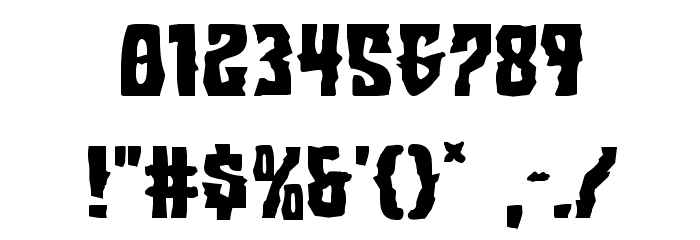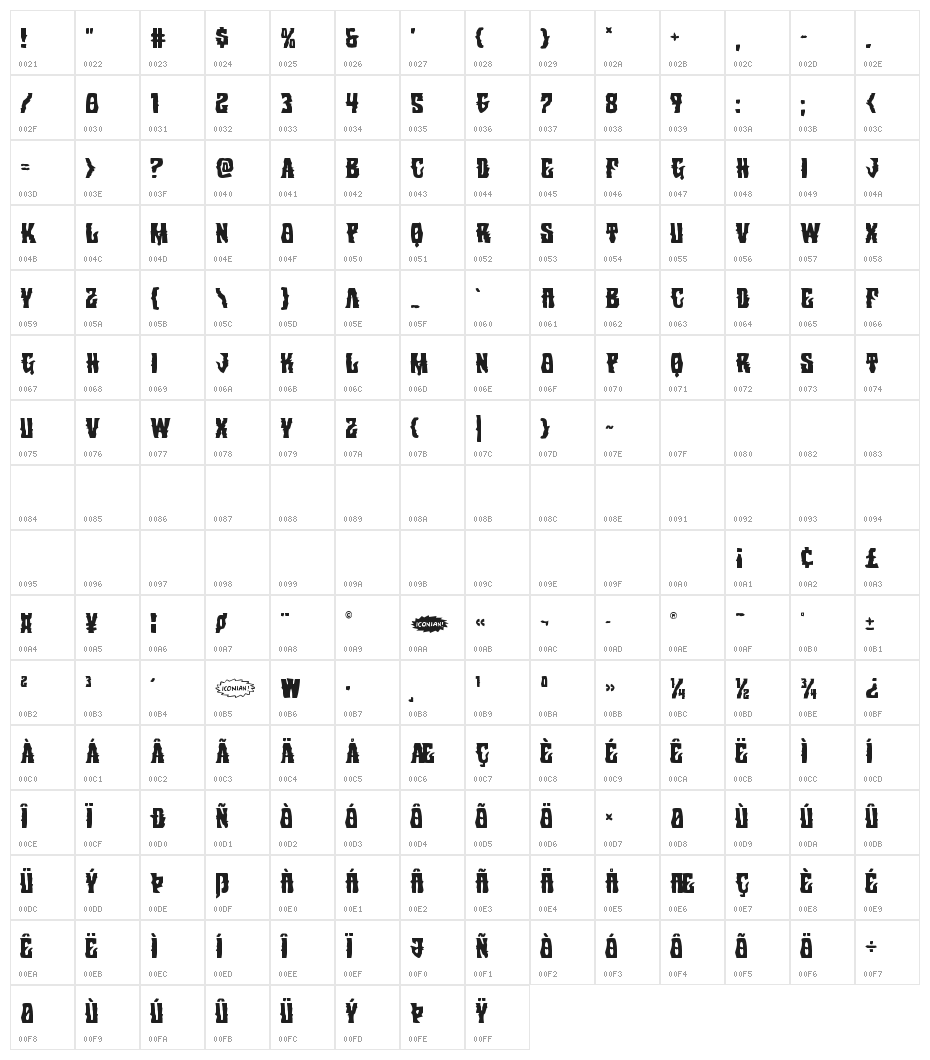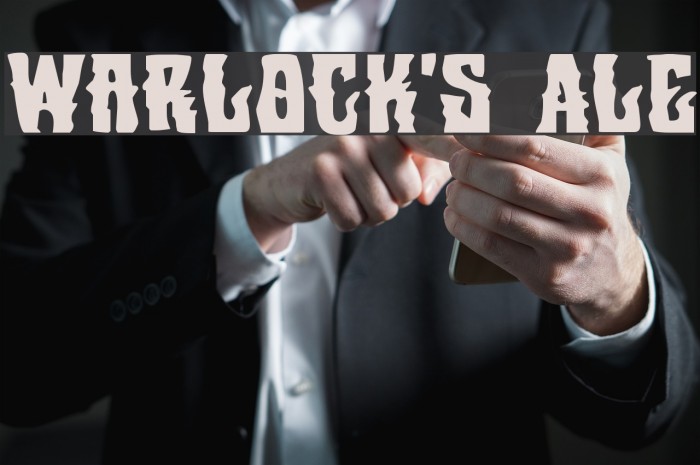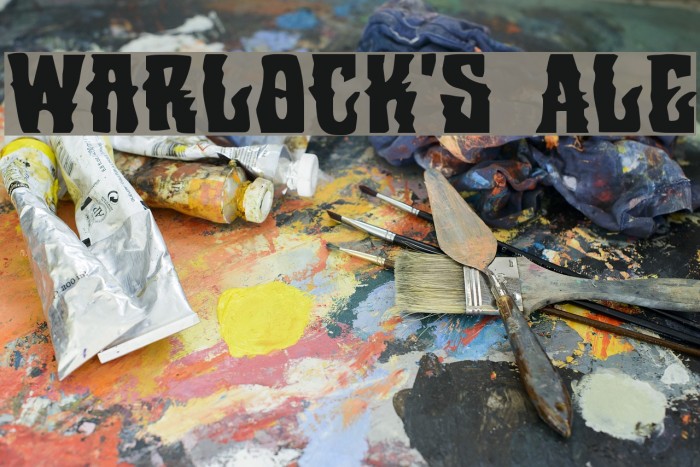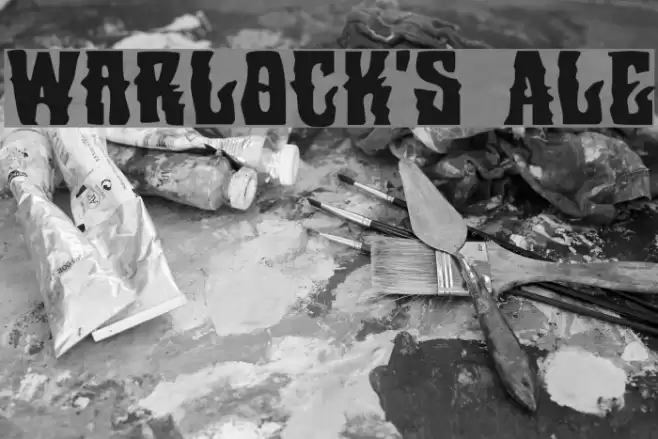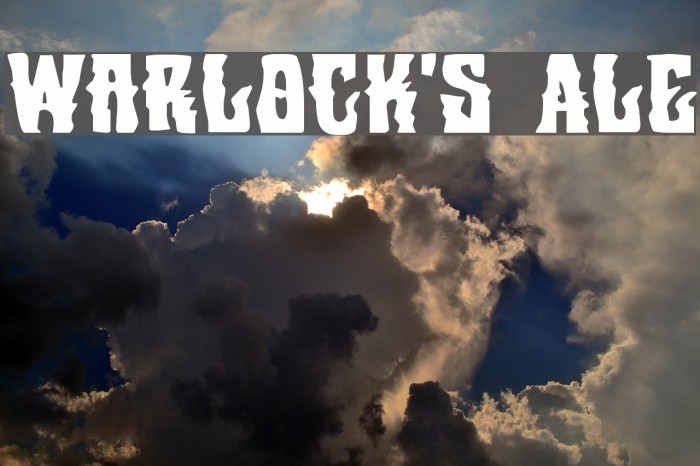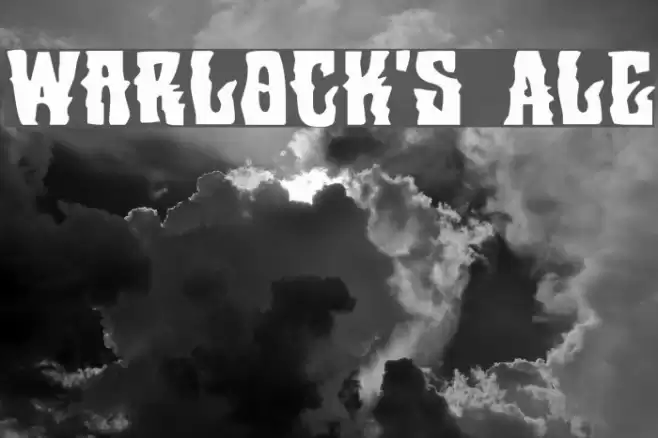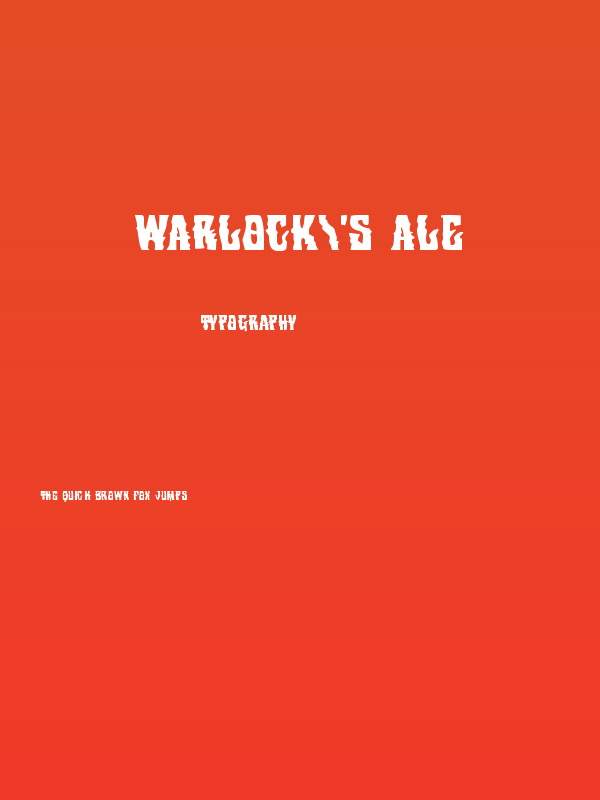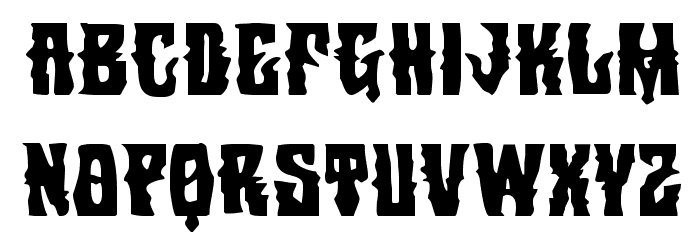
Warlock's Ale Font
Warlock's Ale Description
This font features a bold and dramatic style with jagged, irregular edges that give it a mystical and eerie appearance. The characters are heavily stylized, with sharp angles and a unique, almost gothic flair. The uppercase and lowercase letters maintain a consistent design, while the numbers and special characters complement the overall theme. This font is perfect for creating a sense of mystery and intrigue, making it ideal for projects that require a touch of the supernatural or fantastical.
| Proposed Projects | Ideal for Halloween-themed designs, fantasy book covers, movie posters, and video game titles. |